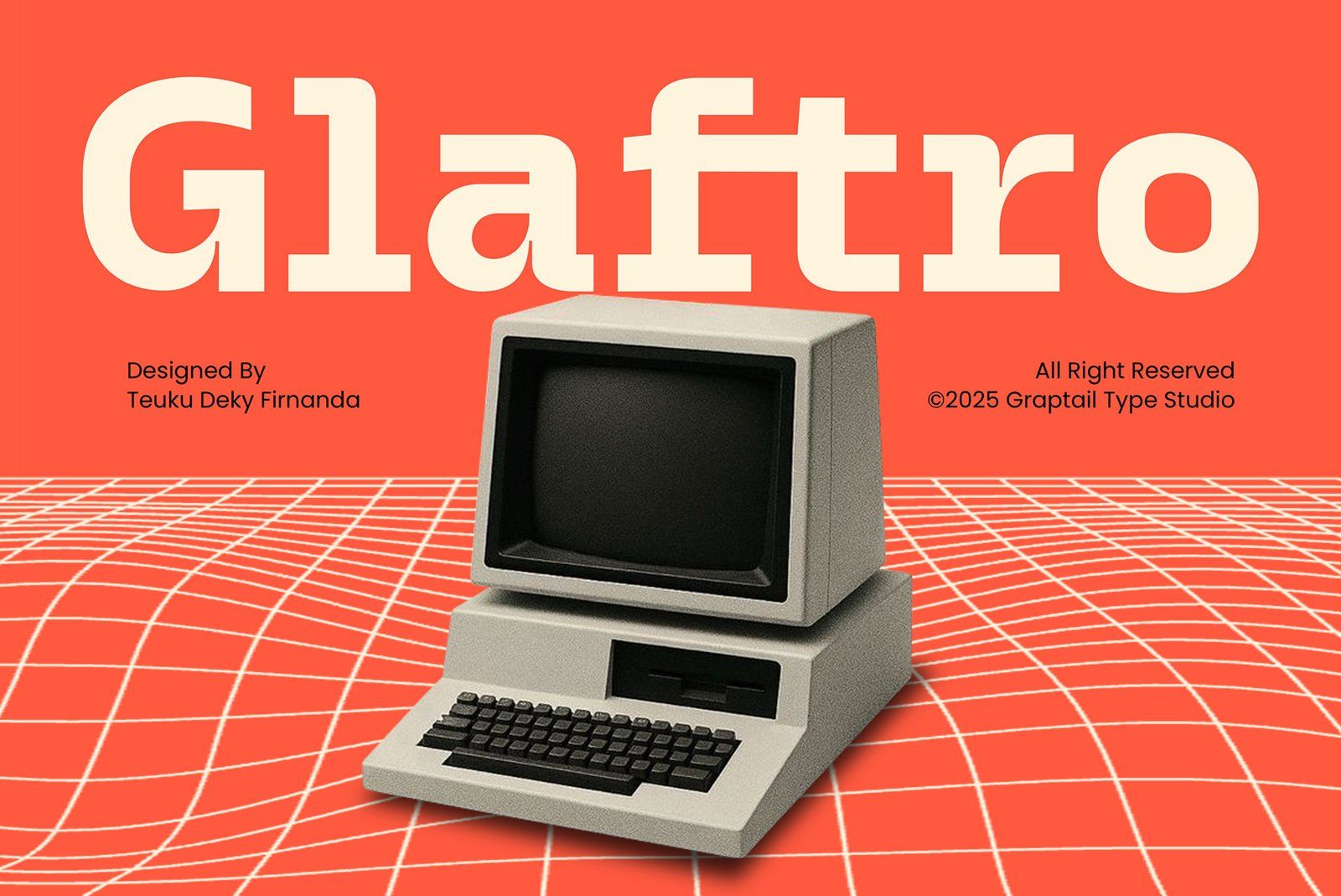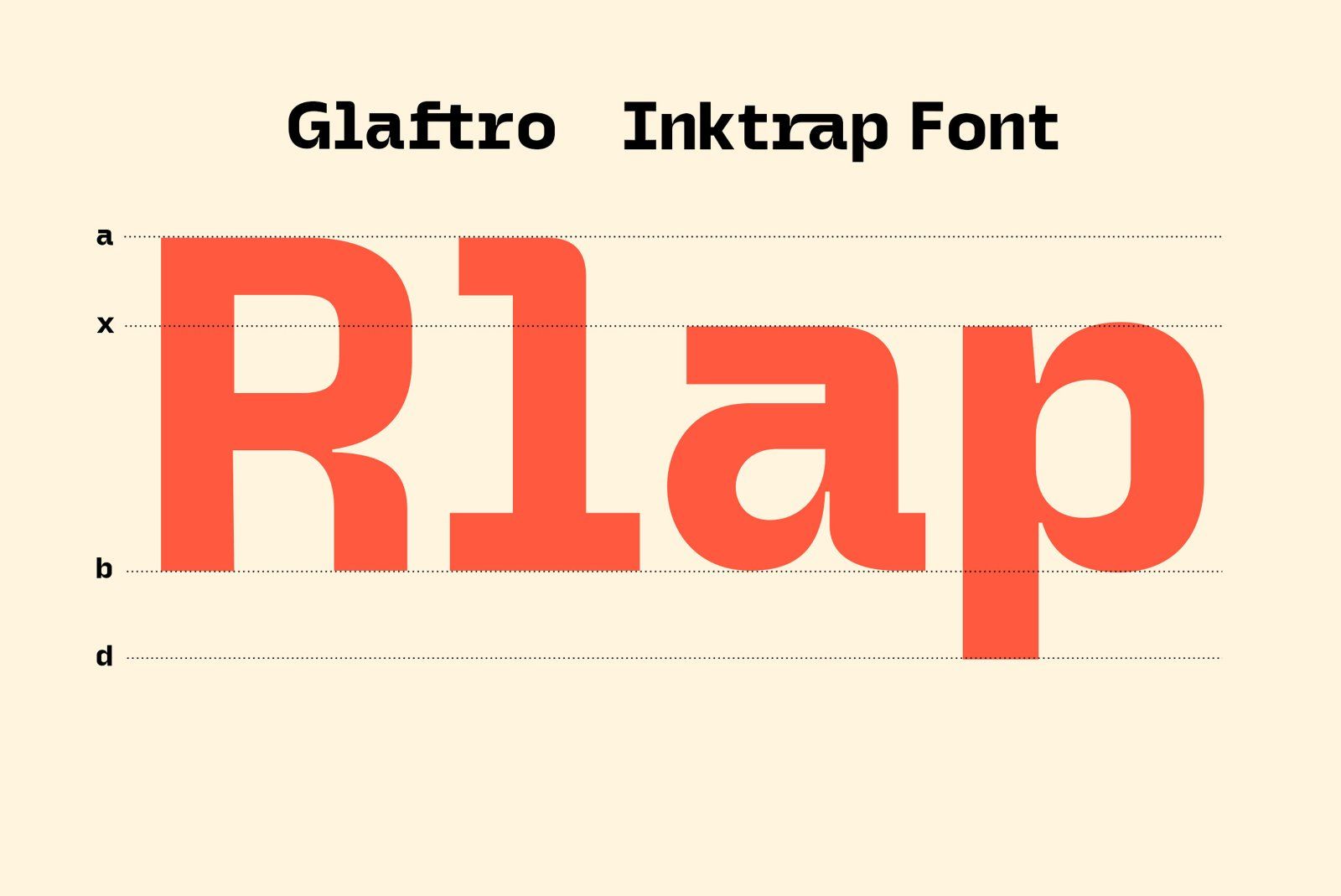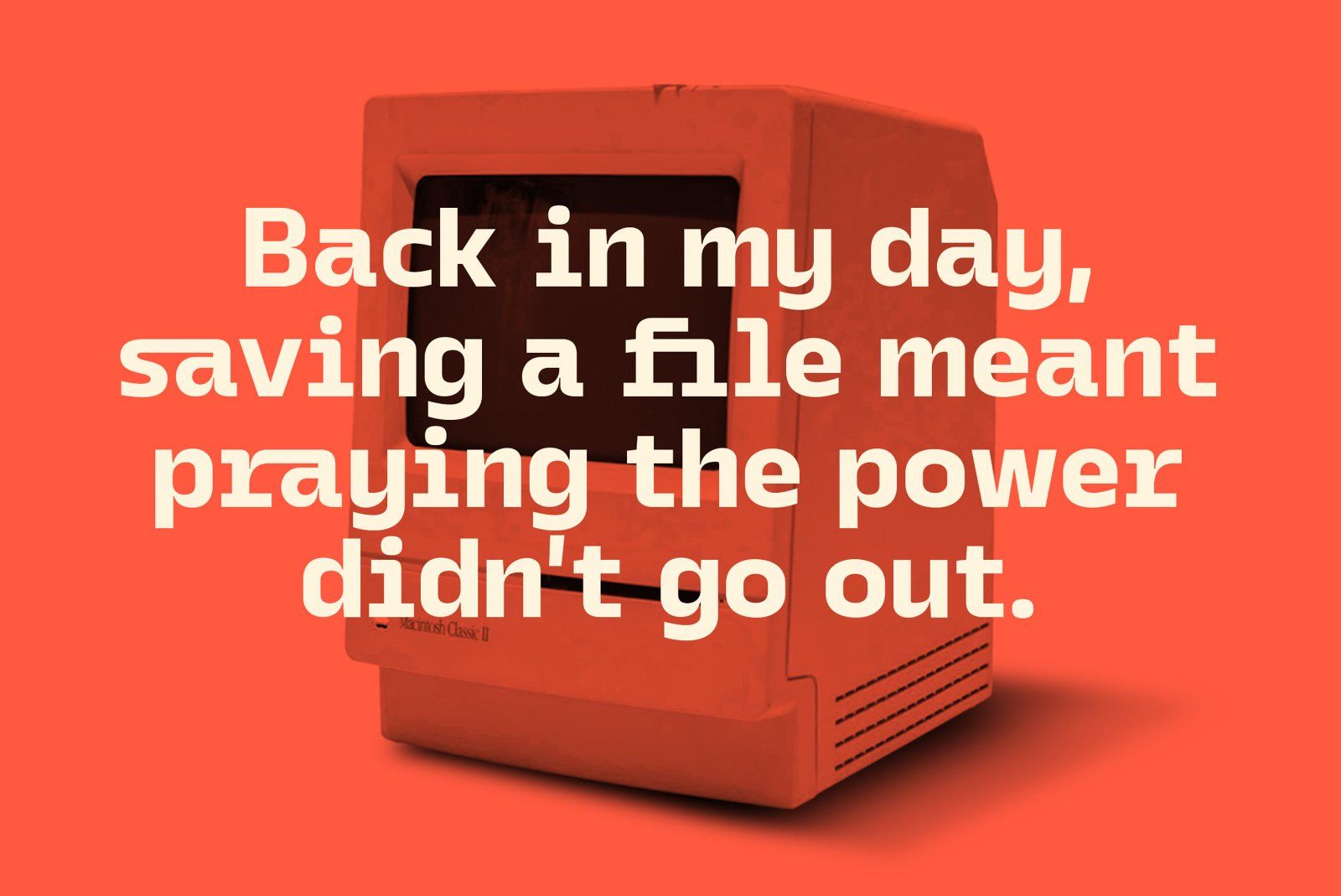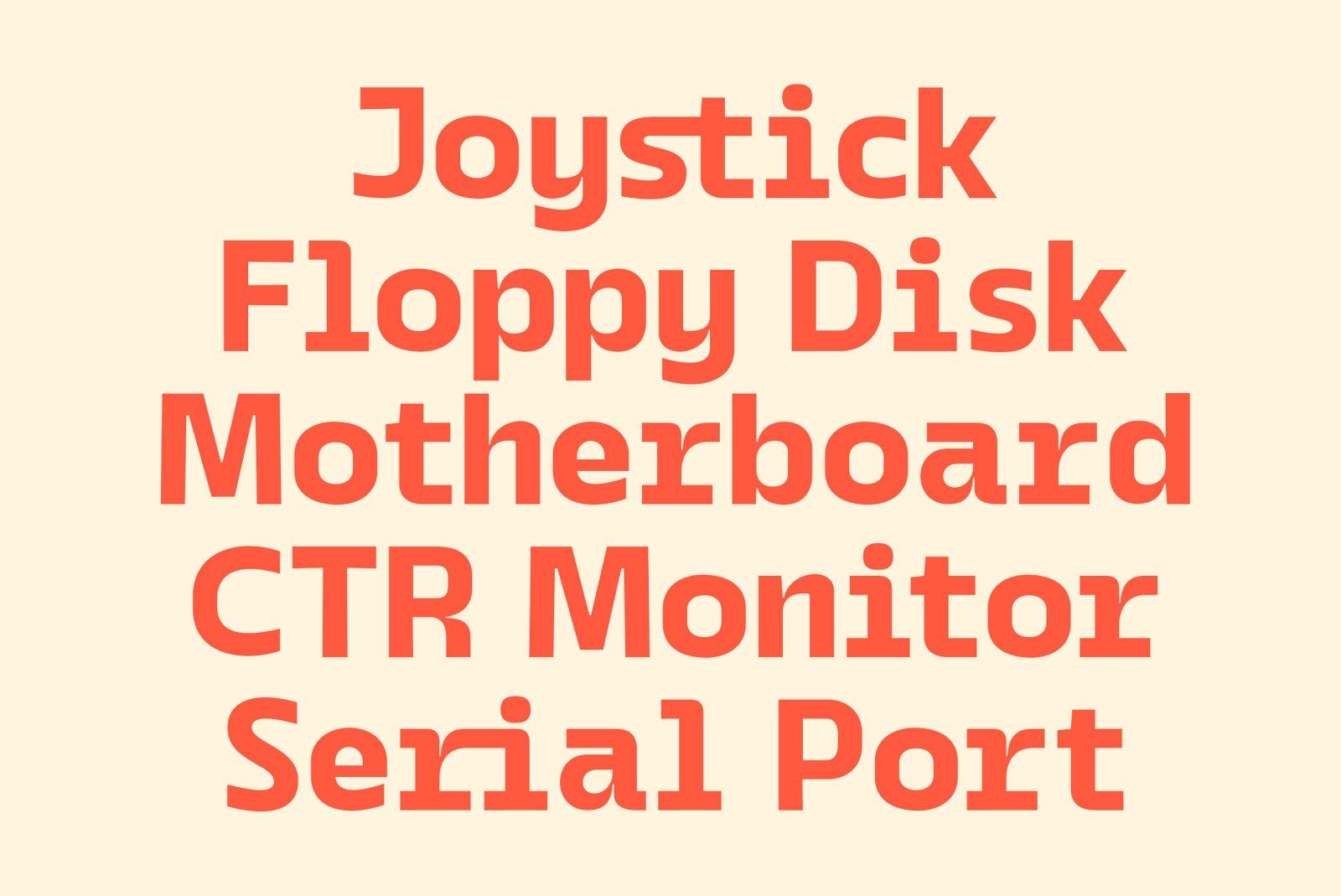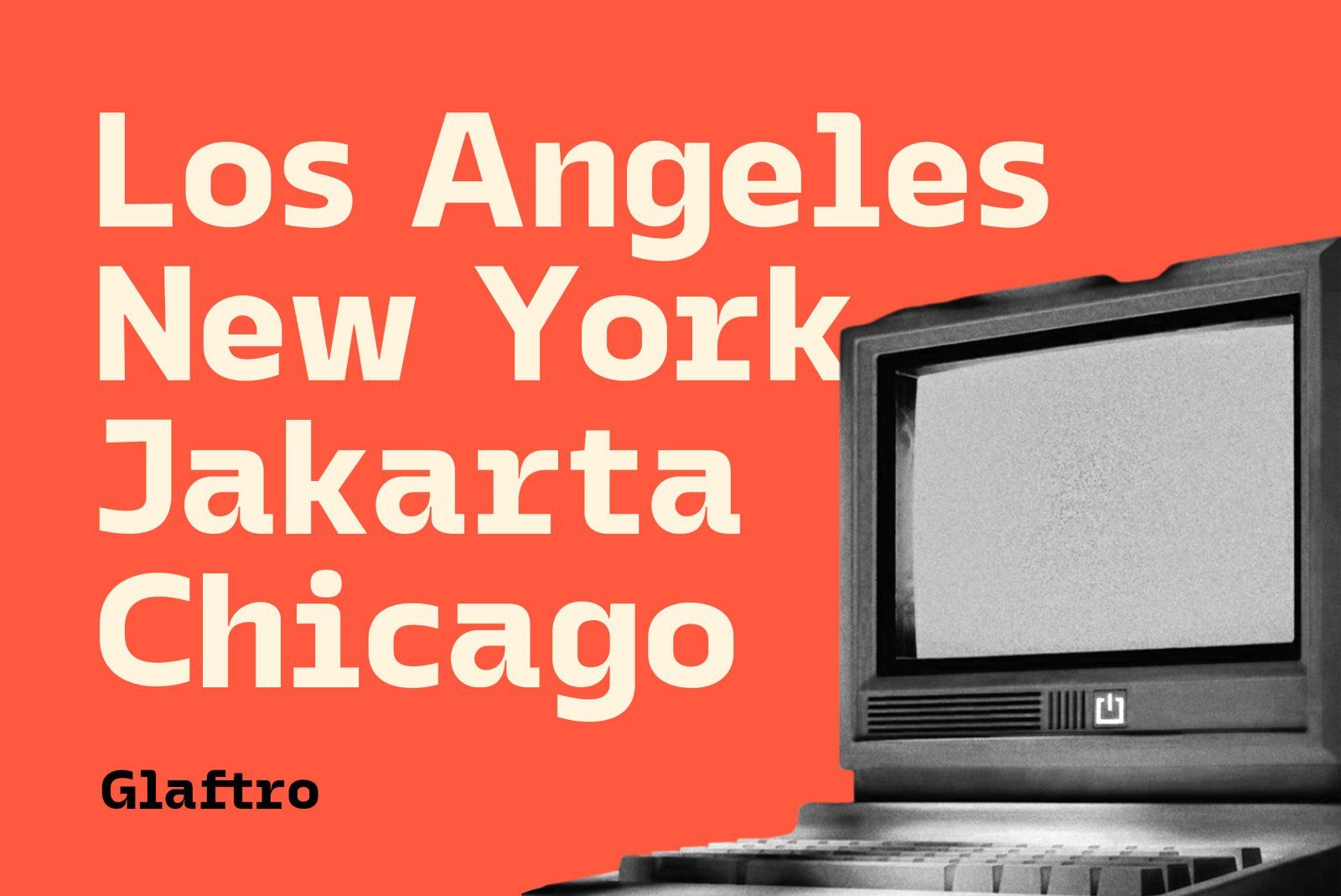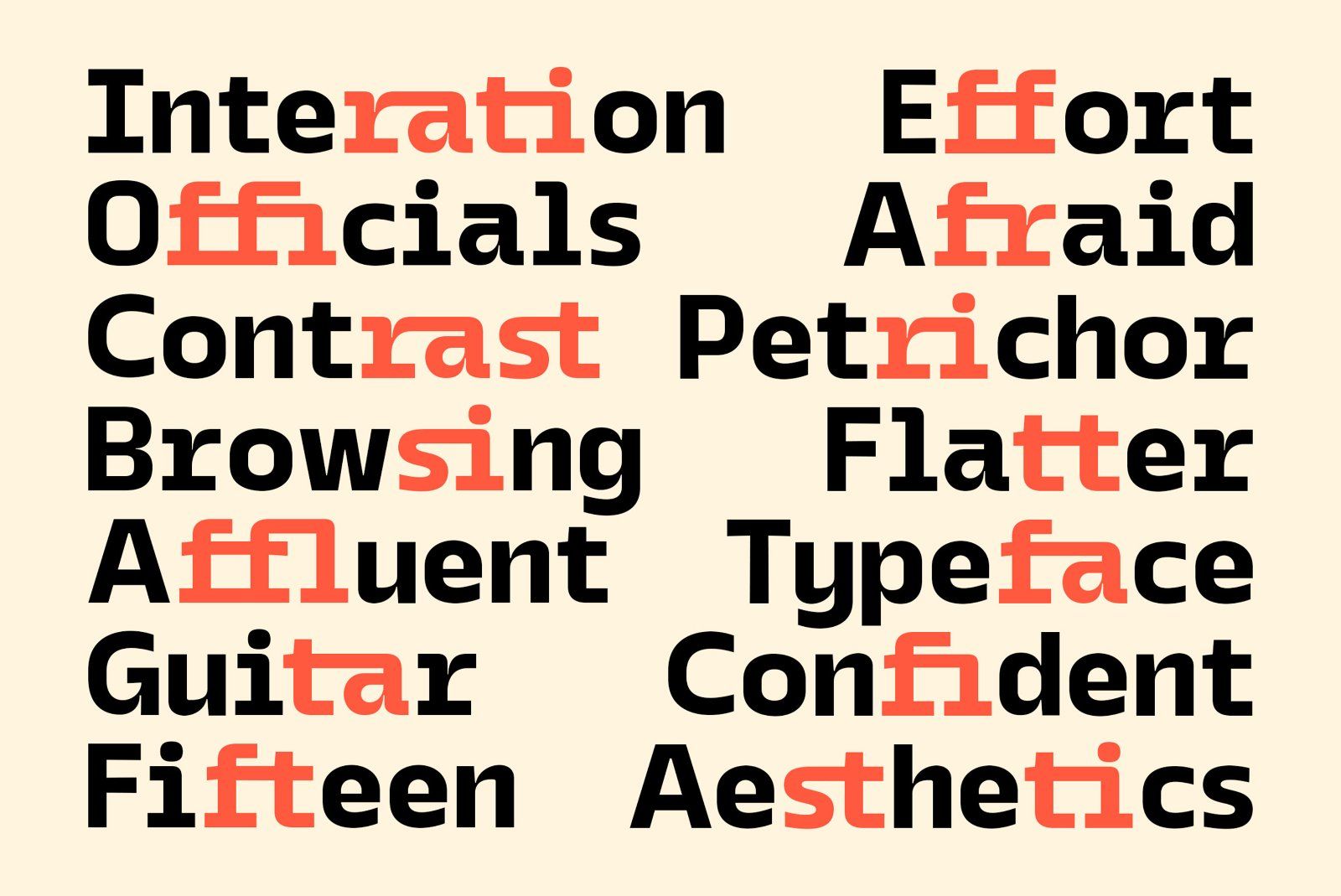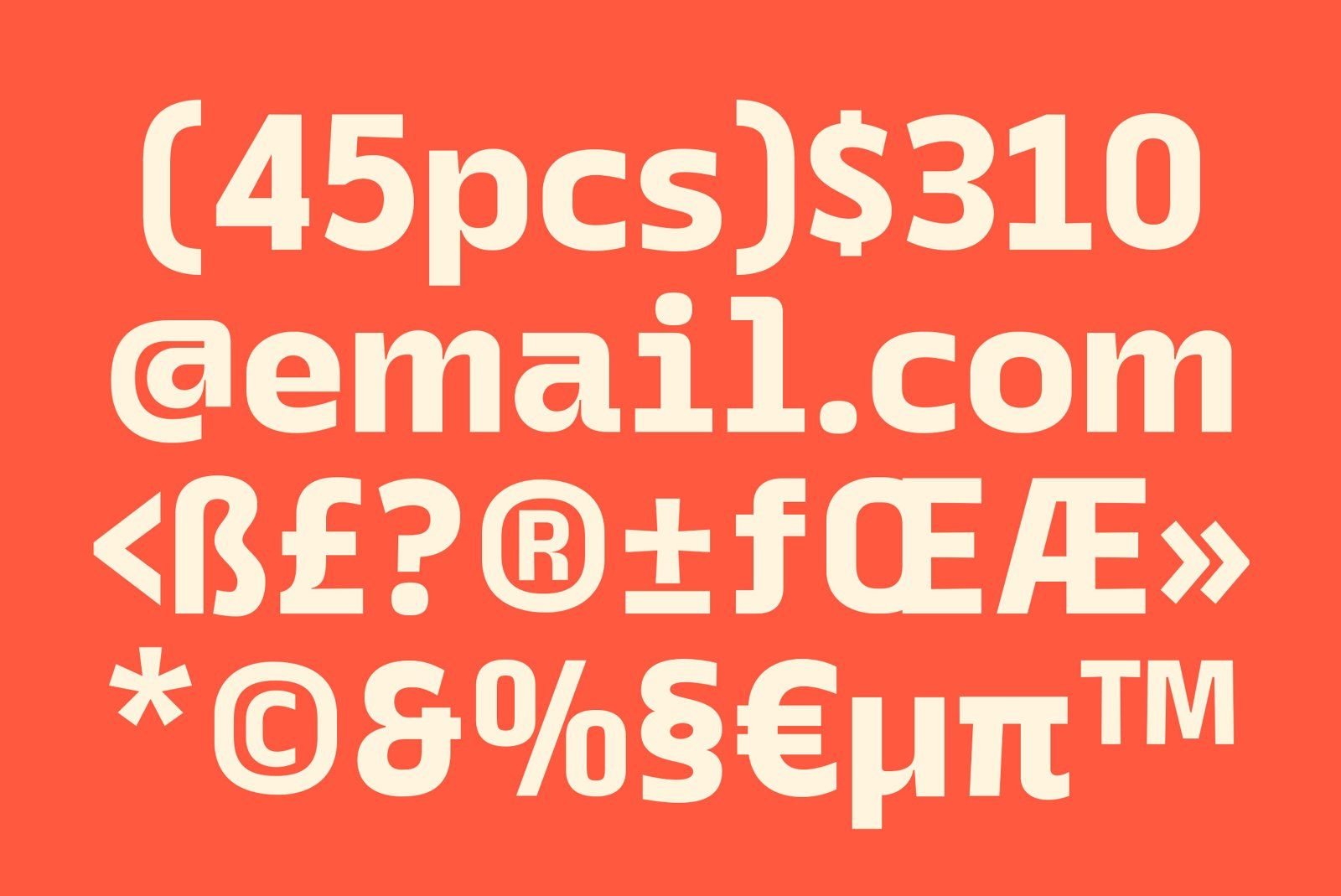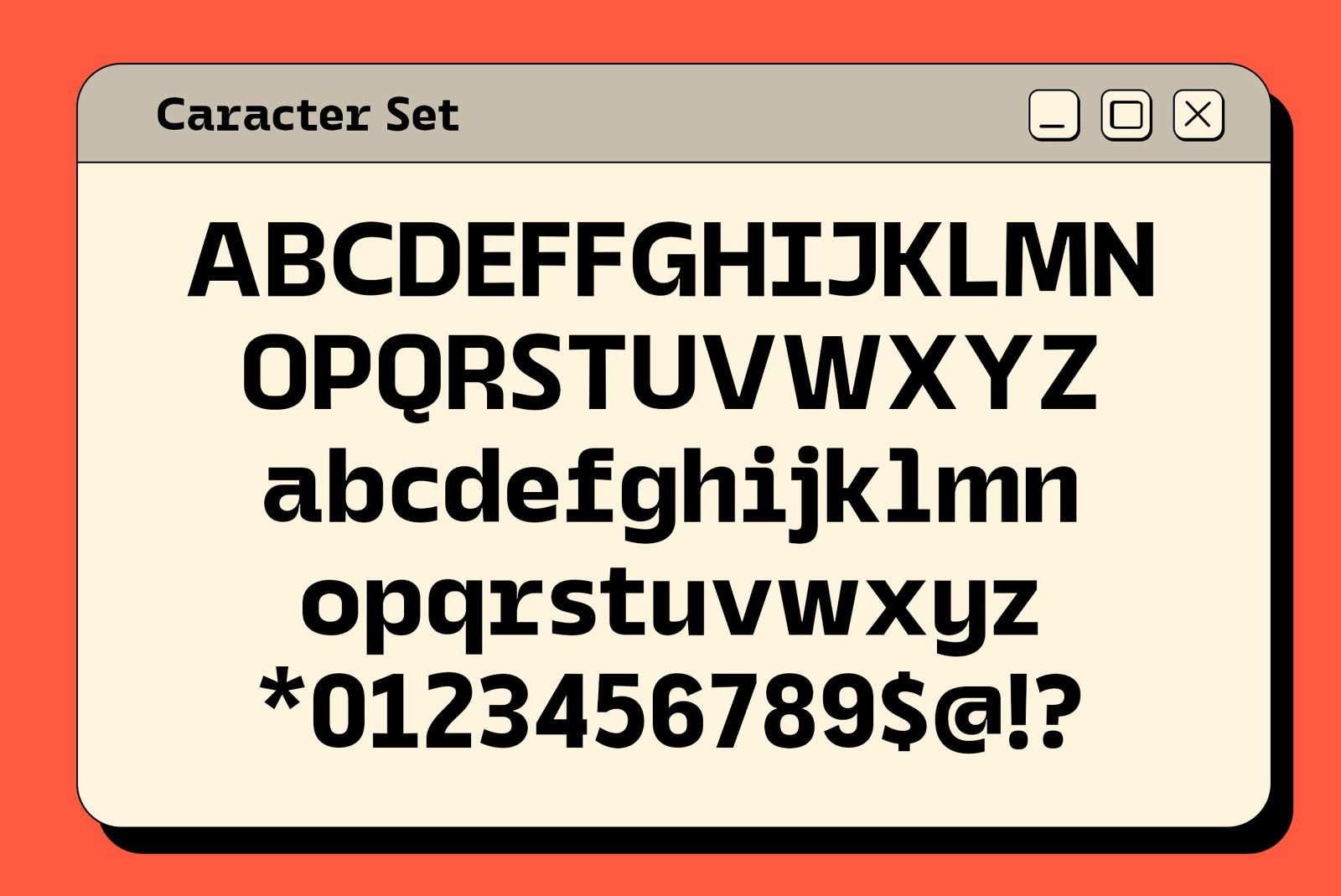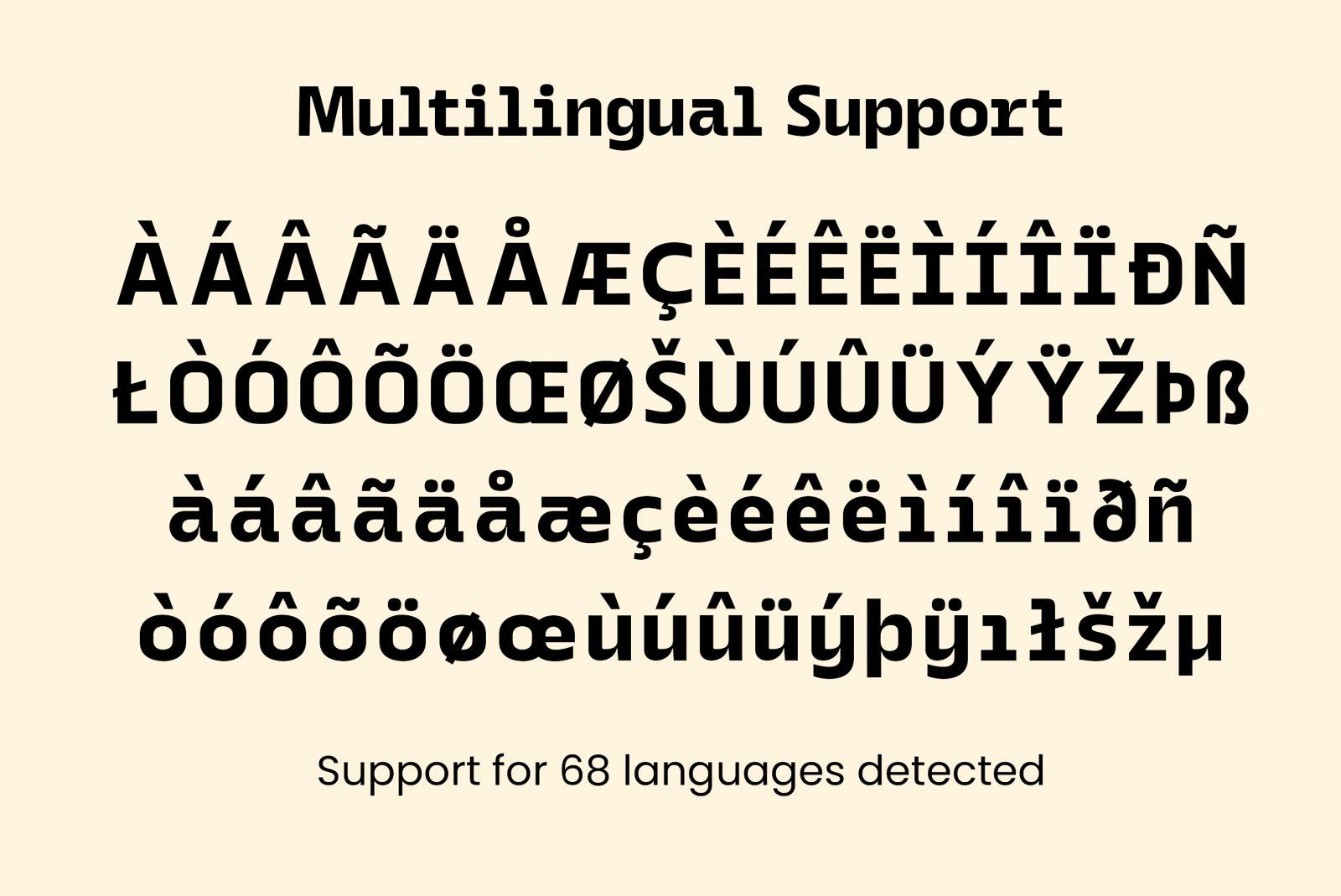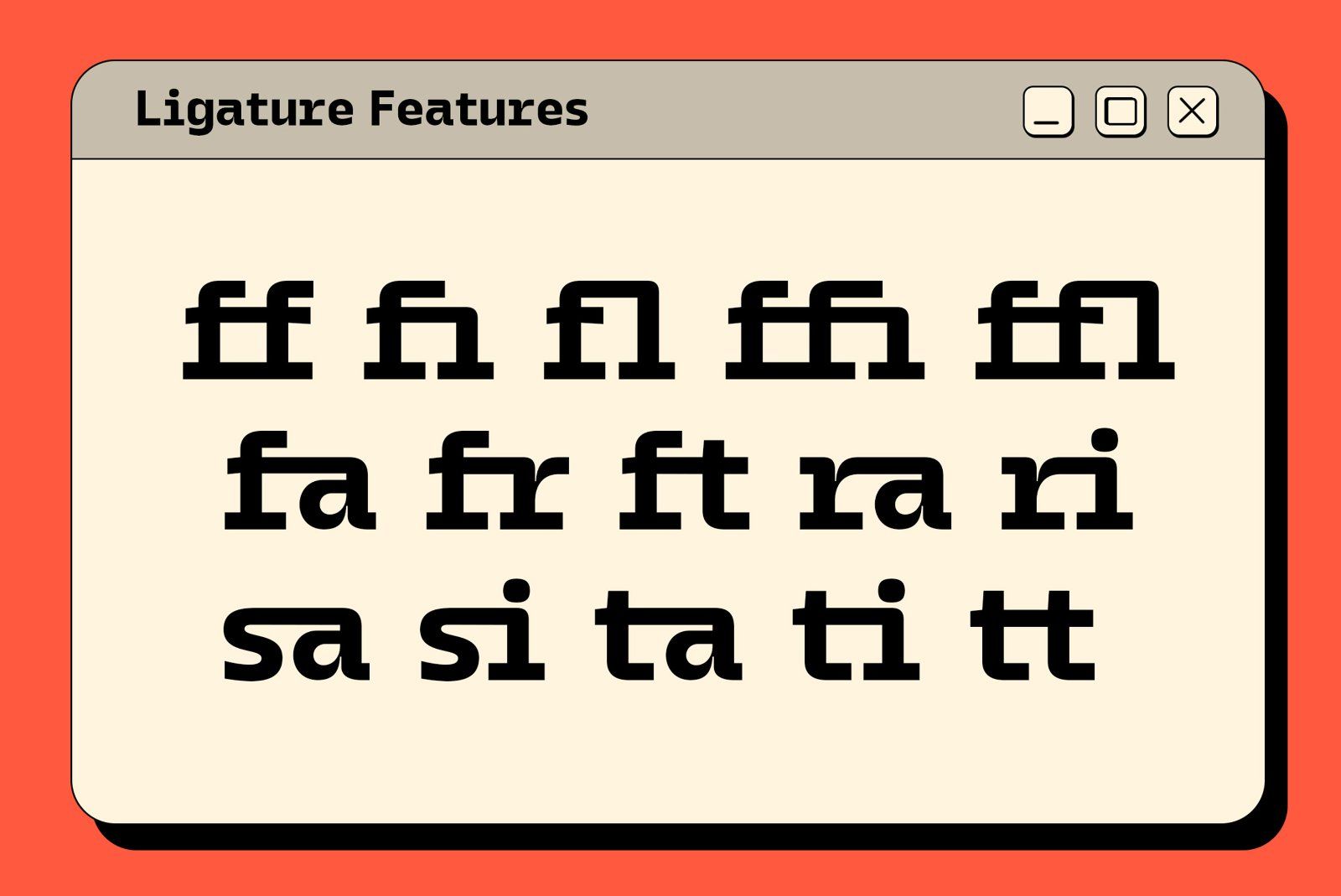
Glaftro – Inktrap Font
Sharp Details. Bold Impact.
Glaftro is a bold inktrap font designed with strong shapes and precise cuts that give every letter a confident, distinctive presence. The unique inktrap details make it stand out in both digital and print use, while maintaining perfect readability.
Equipped with 10 stylish ligature features, Glaftro allows you to create dynamic and striking typographic compositions with ease.